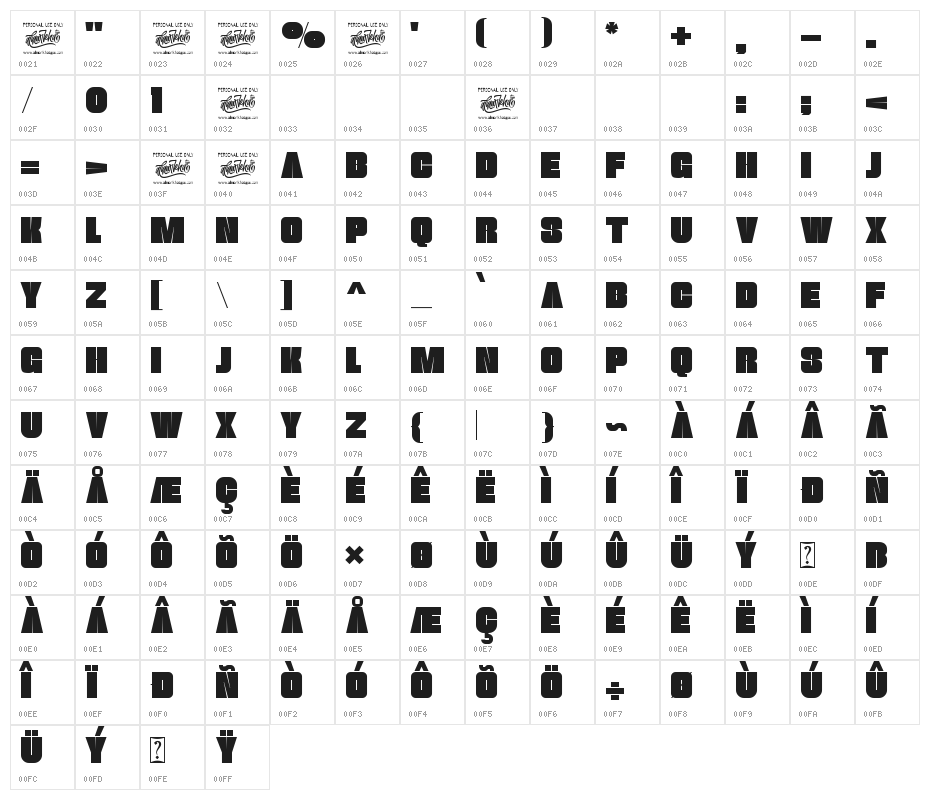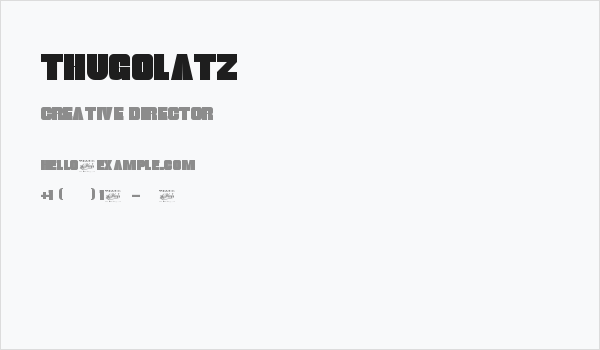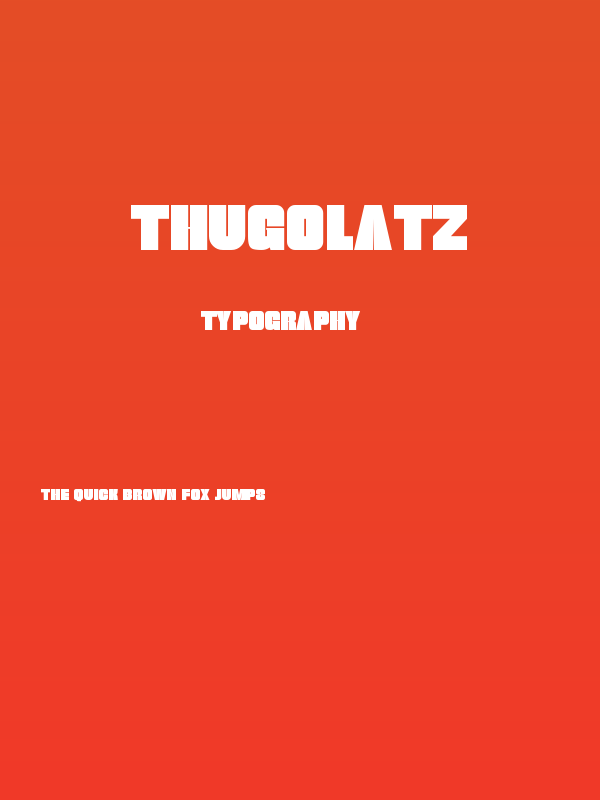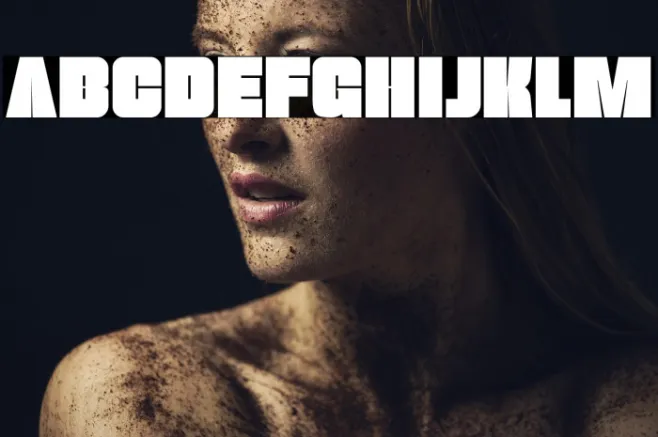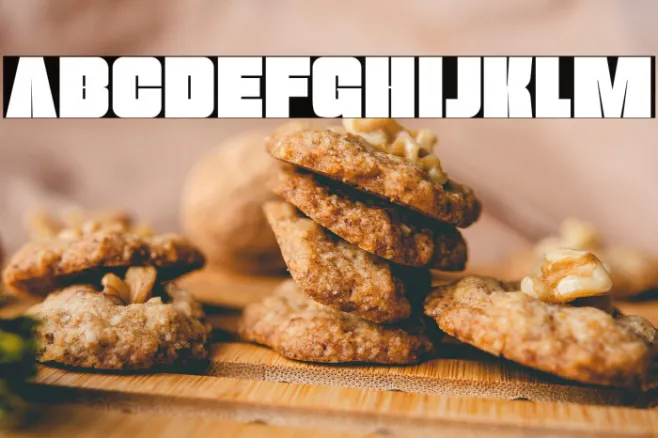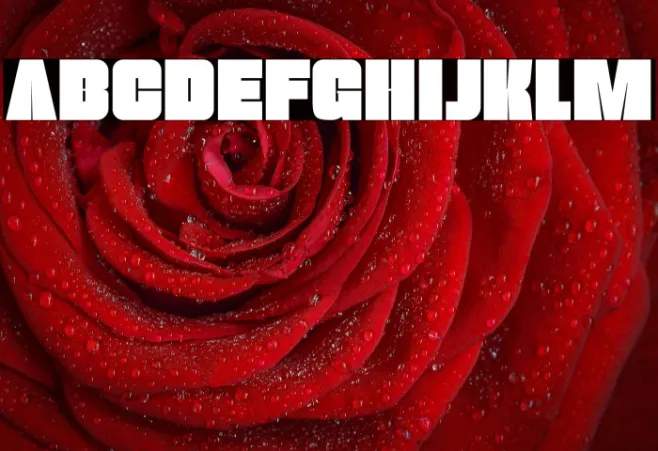
thugolatz Font
thugolatz Description
This font features a bold and impactful design with a strong presence. The characters are blocky and geometric, with a consistent thickness throughout, giving it a robust and solid appearance. The uppercase letters are particularly striking, with sharp angles and a modern aesthetic. The numbers and special characters maintain the same bold style, ensuring uniformity across all elements. This font is designed to stand out and make a statement, suitable for projects that require a strong visual impact.
| Proposed Projects | Ideal for posters, headlines, branding, and any design requiring a bold statement. |